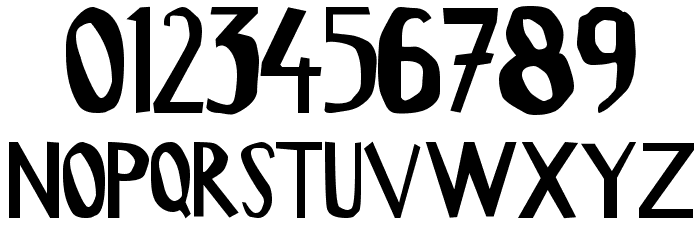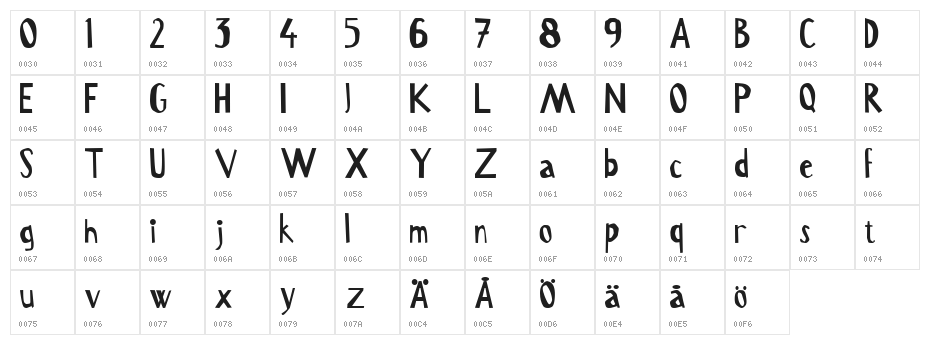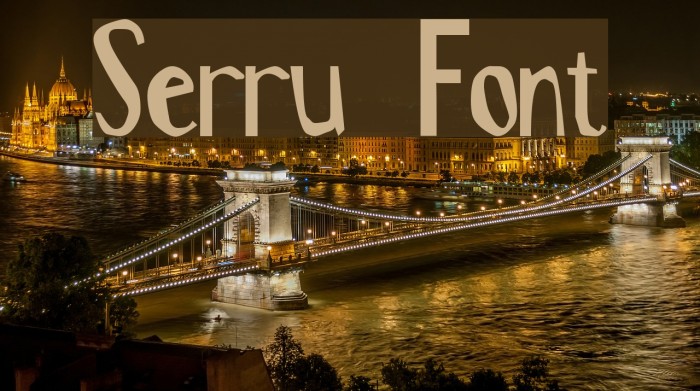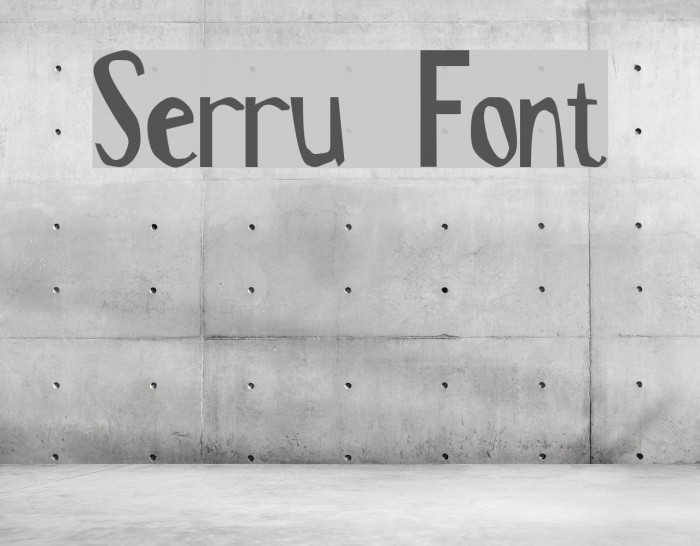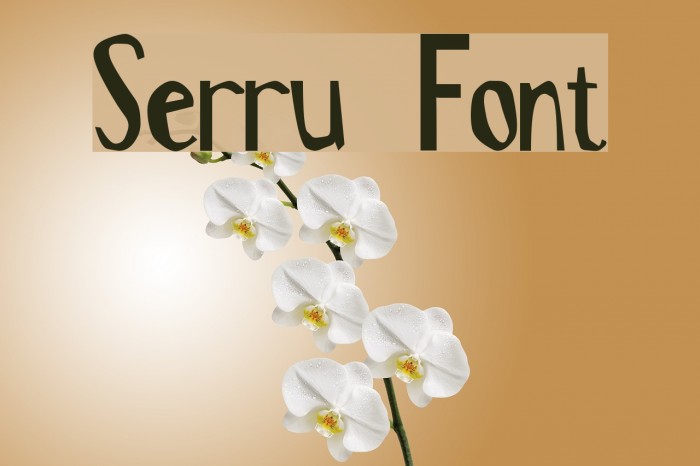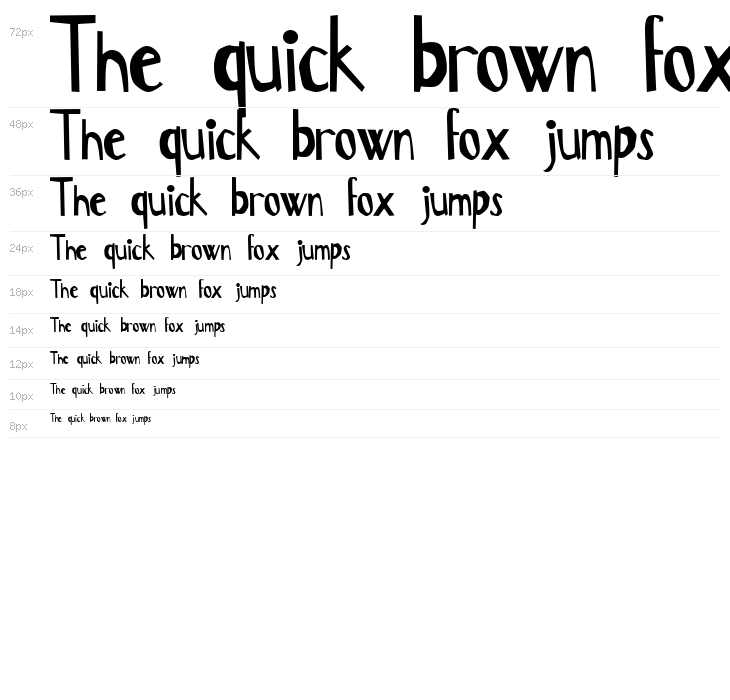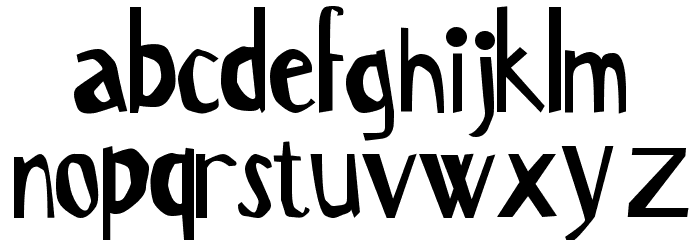
Serru Font
Serru Description
This font features a playful and quirky design with a mix of sharp and rounded edges, creating a unique and eye-catching appearance. The uppercase letters are bold and slightly condensed, while the lowercase letters maintain a consistent style with a touch of whimsy. The numbers are distinct and maintain the playful nature of the font, making it suitable for creative and informal projects. The special characters are designed to match the overall style, ensuring consistency across all elements.
| Proposed Projects | Ideal for children's books, playful branding, creative posters, and informal invitations. |